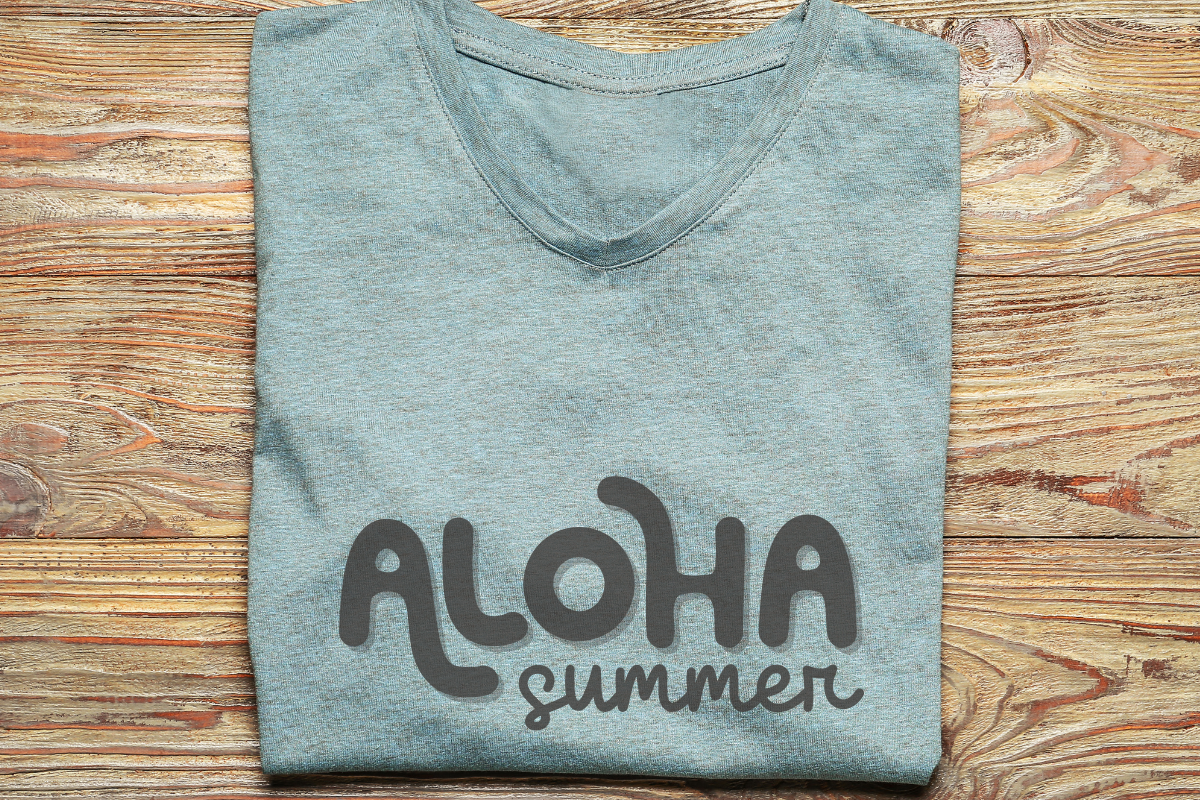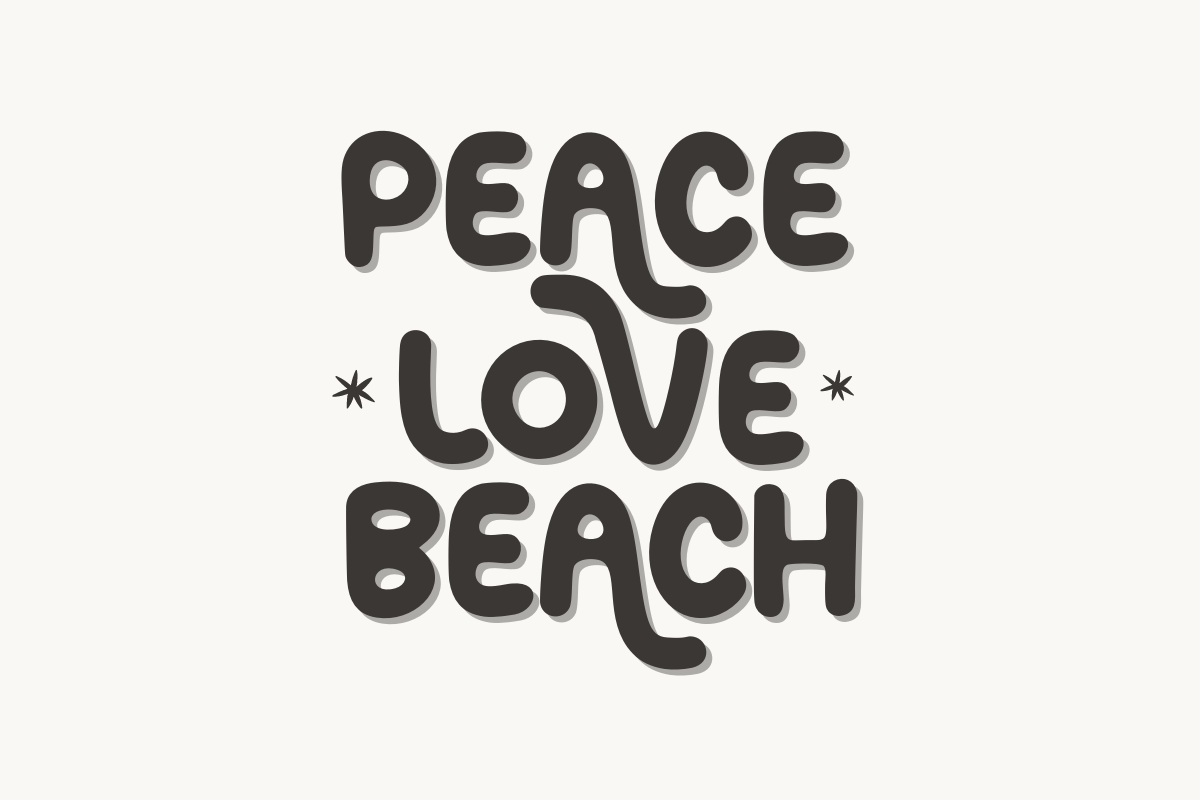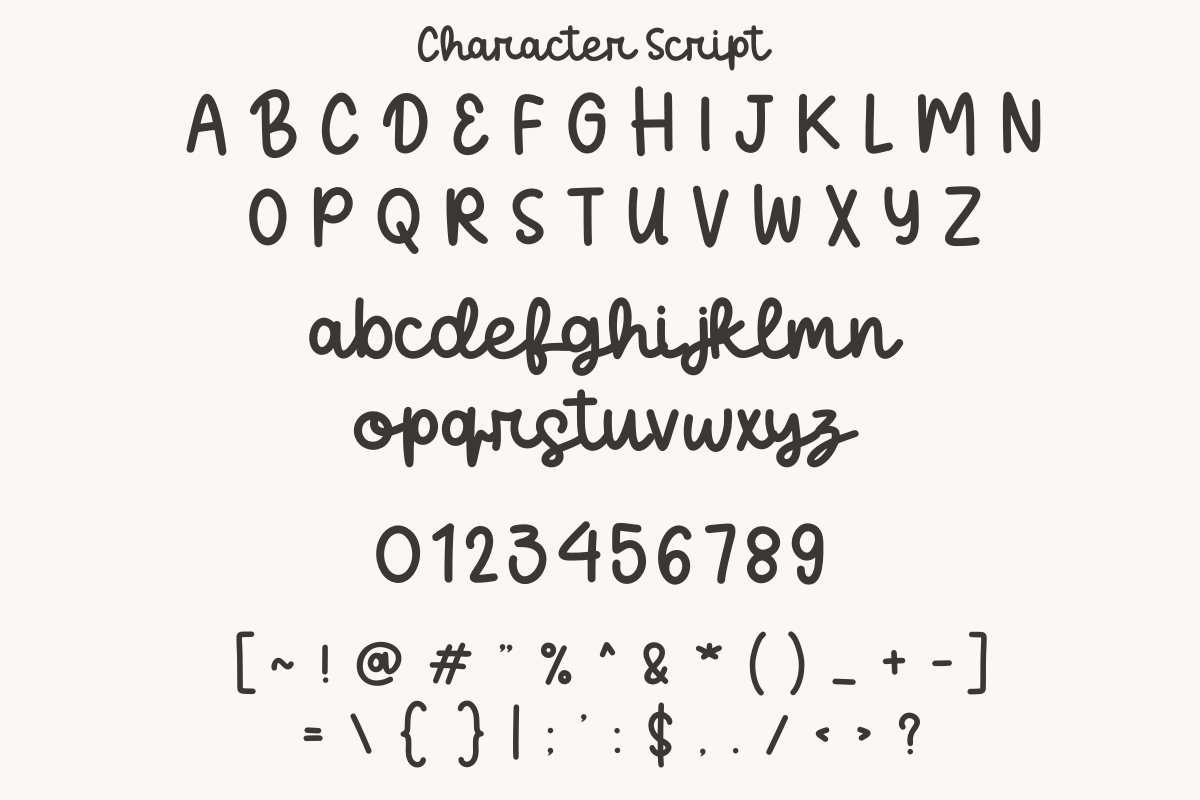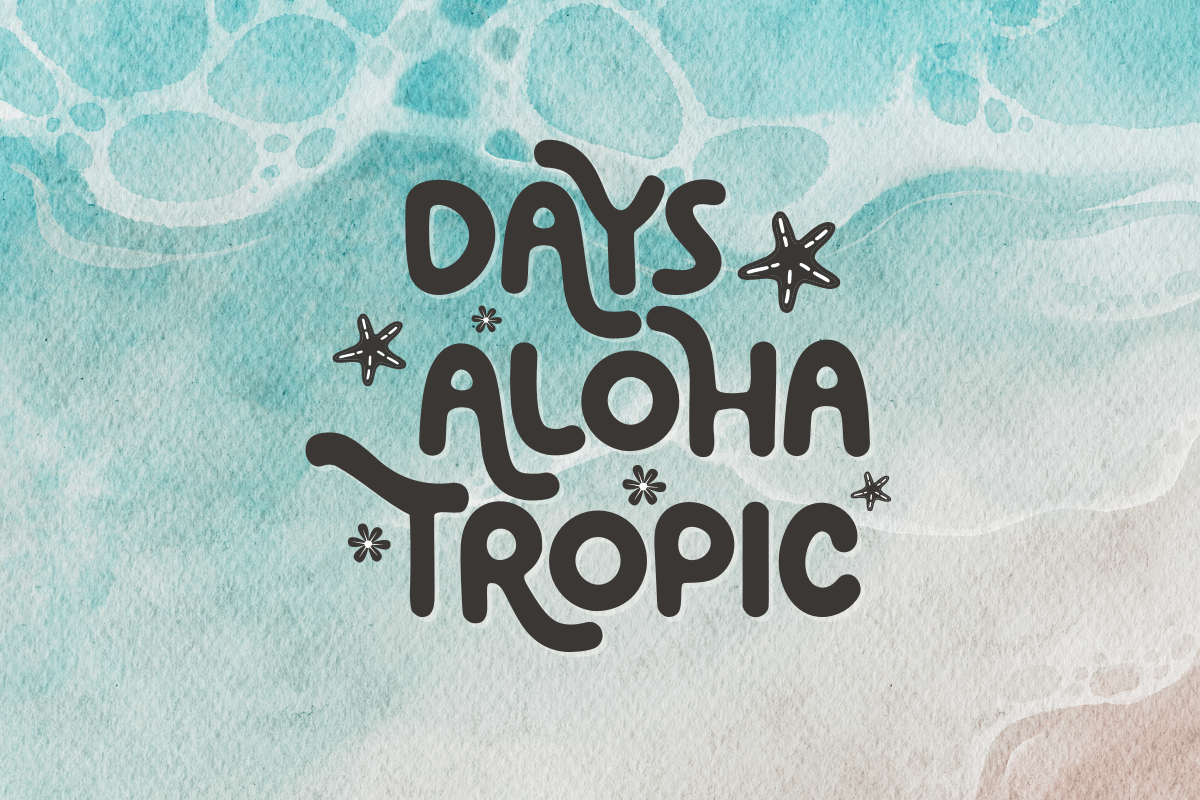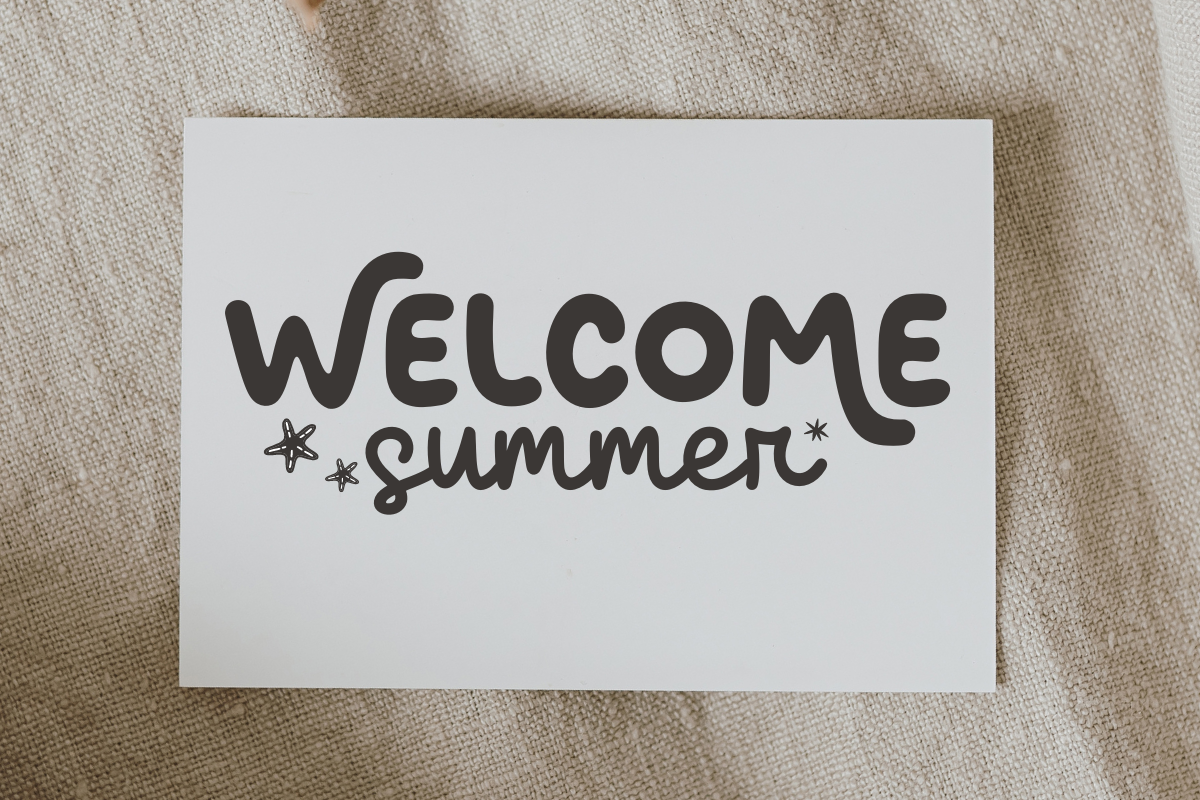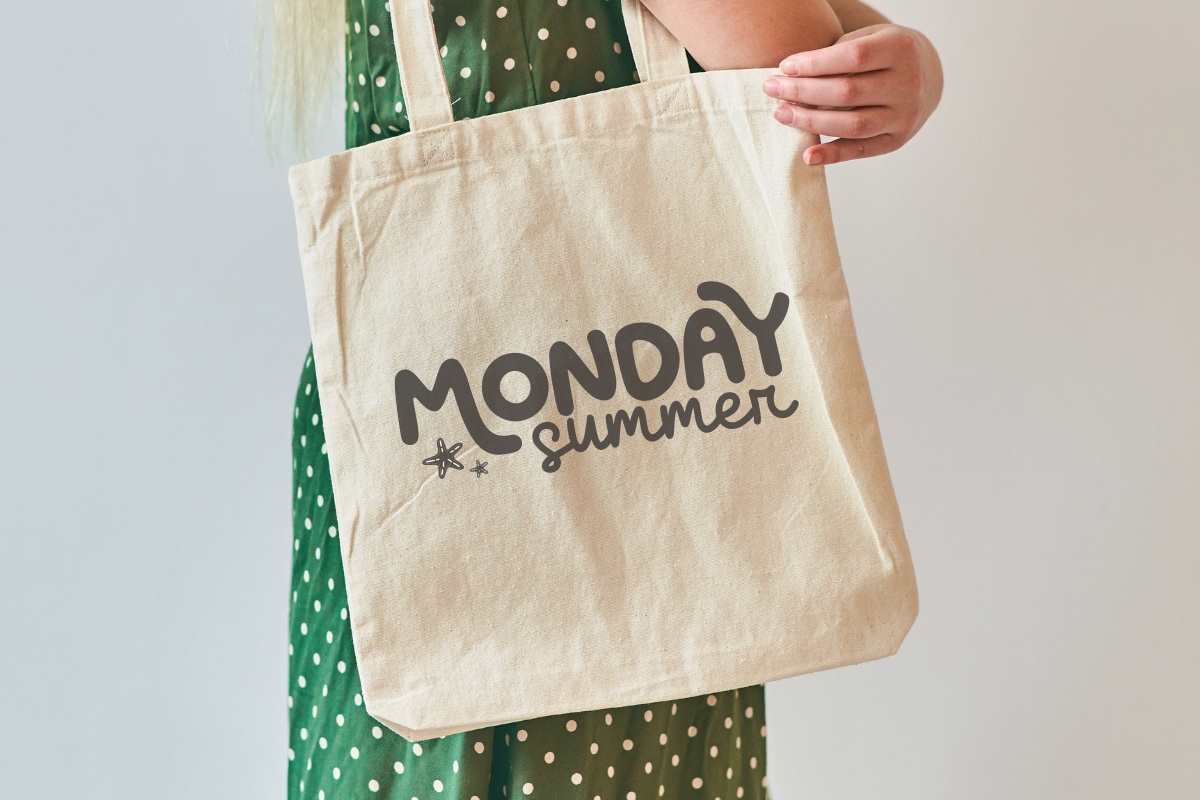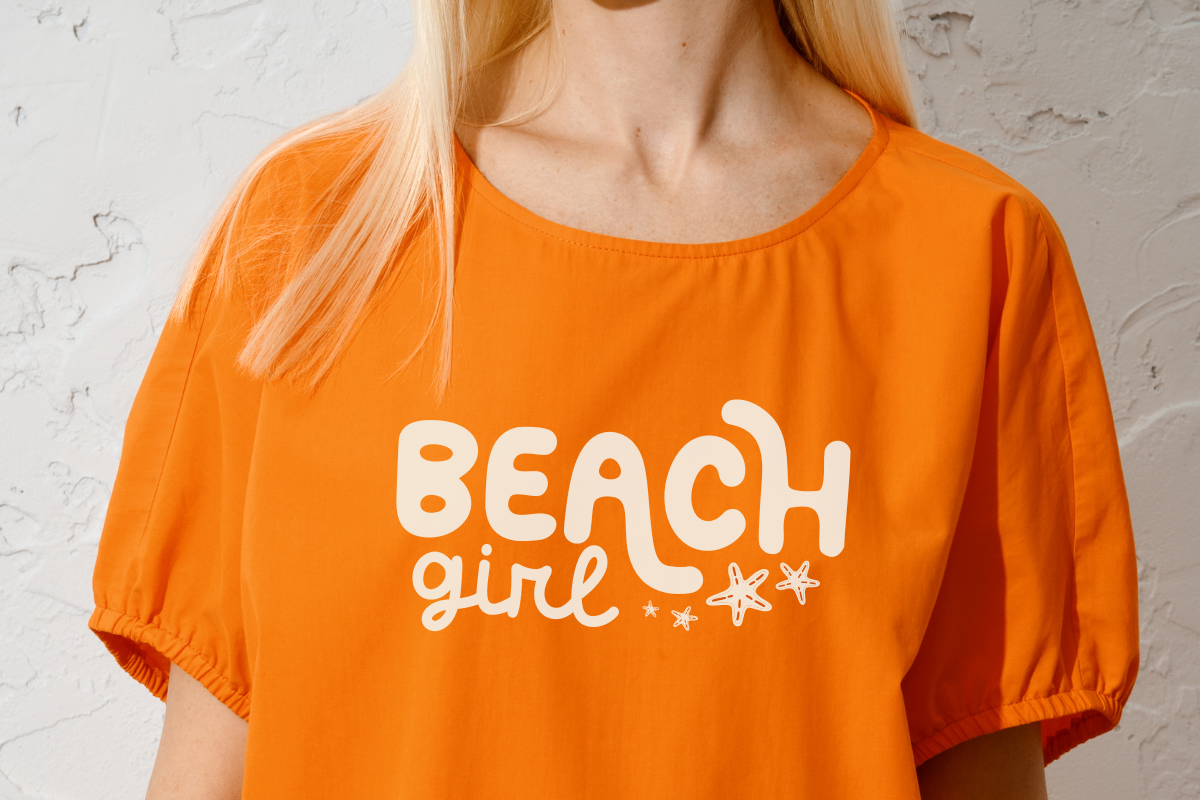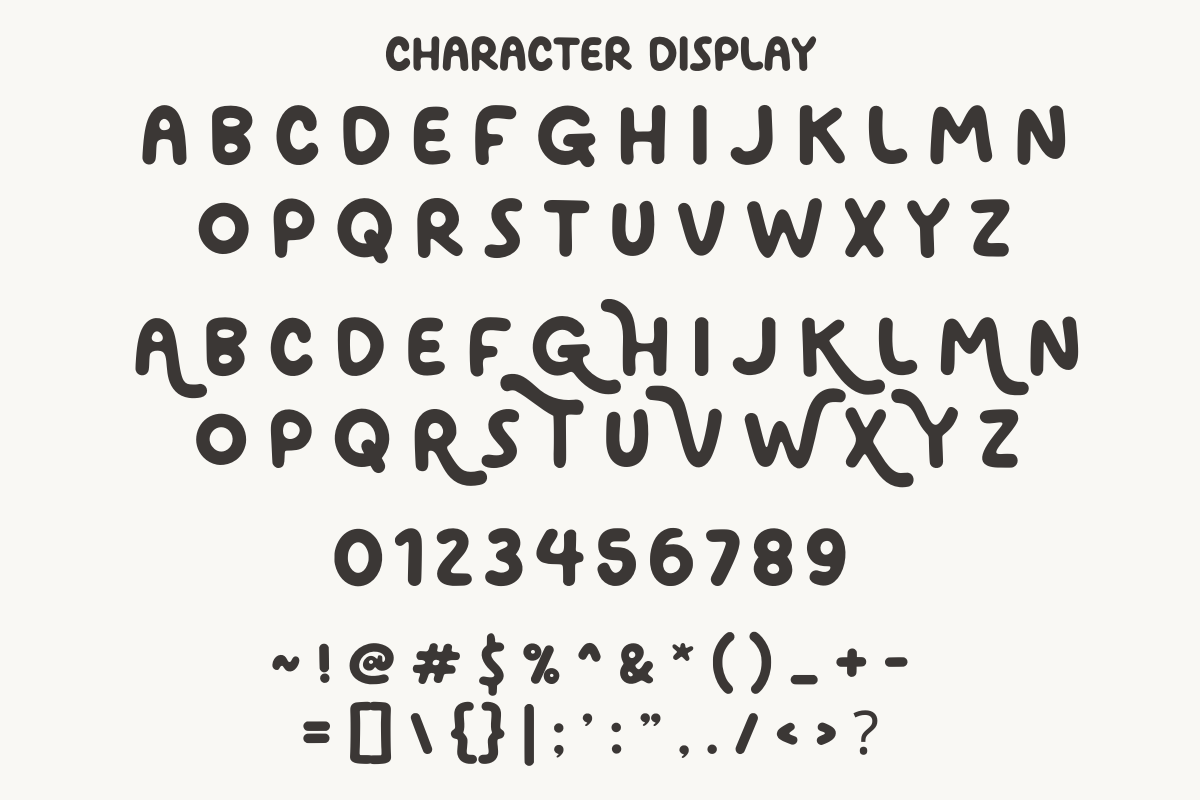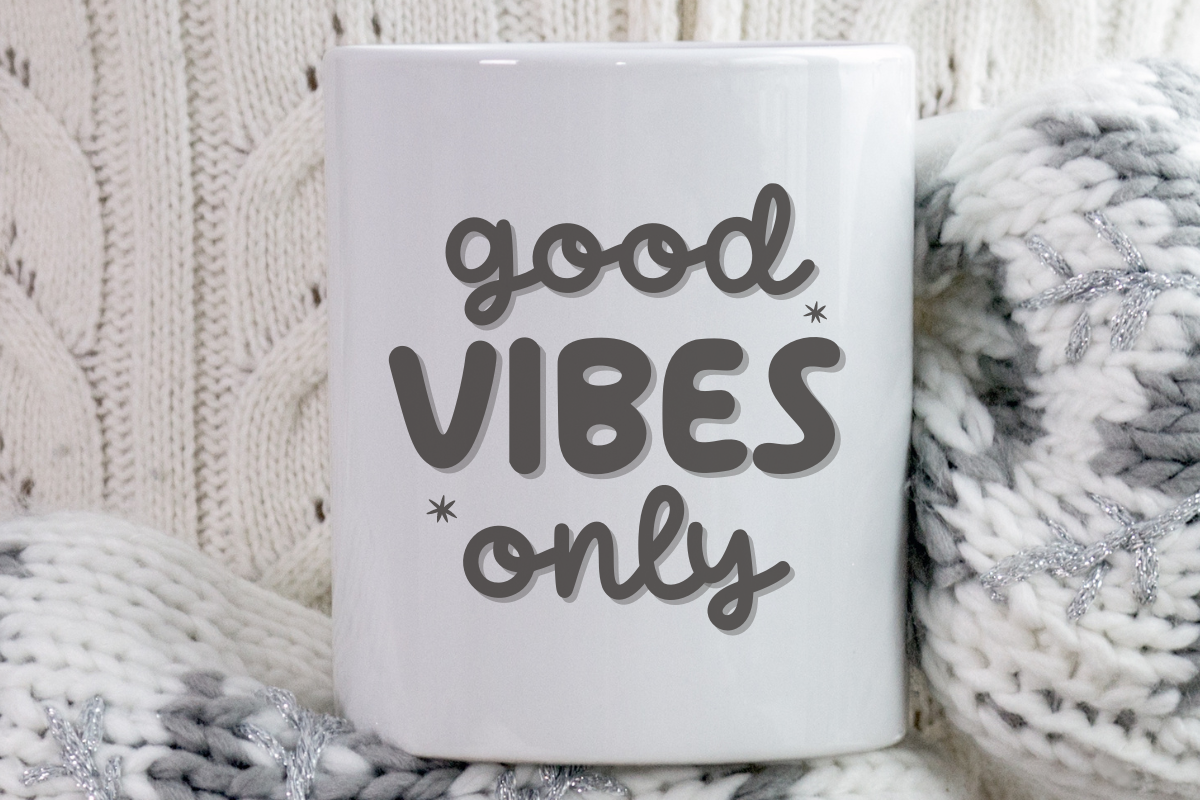
Surfing Beach Duo
Surfing Beach, a delightful handwritten font duo blending display and script characters. This charming blend offers a unique pairing of playfulness and grace, enhancing displays when combining uppercase and lowercase letters. Ready to breathe life into your crafts, add a bespoke feel to clothing, and add a special touch to life’s memorable moments, Surfing Beach possesses versatile charm.
It embellishes packaging with a joyful touch, lends a chic charm to hoodies and mugs, and transforms simple quotes into elegant statements. Ideal for personalizing greeting cards, it infuses an intimate, handwritten appeal that sets your gift apart. Unleash your creativity with Surfing Beach, the font duo that exemplifies creative expression.